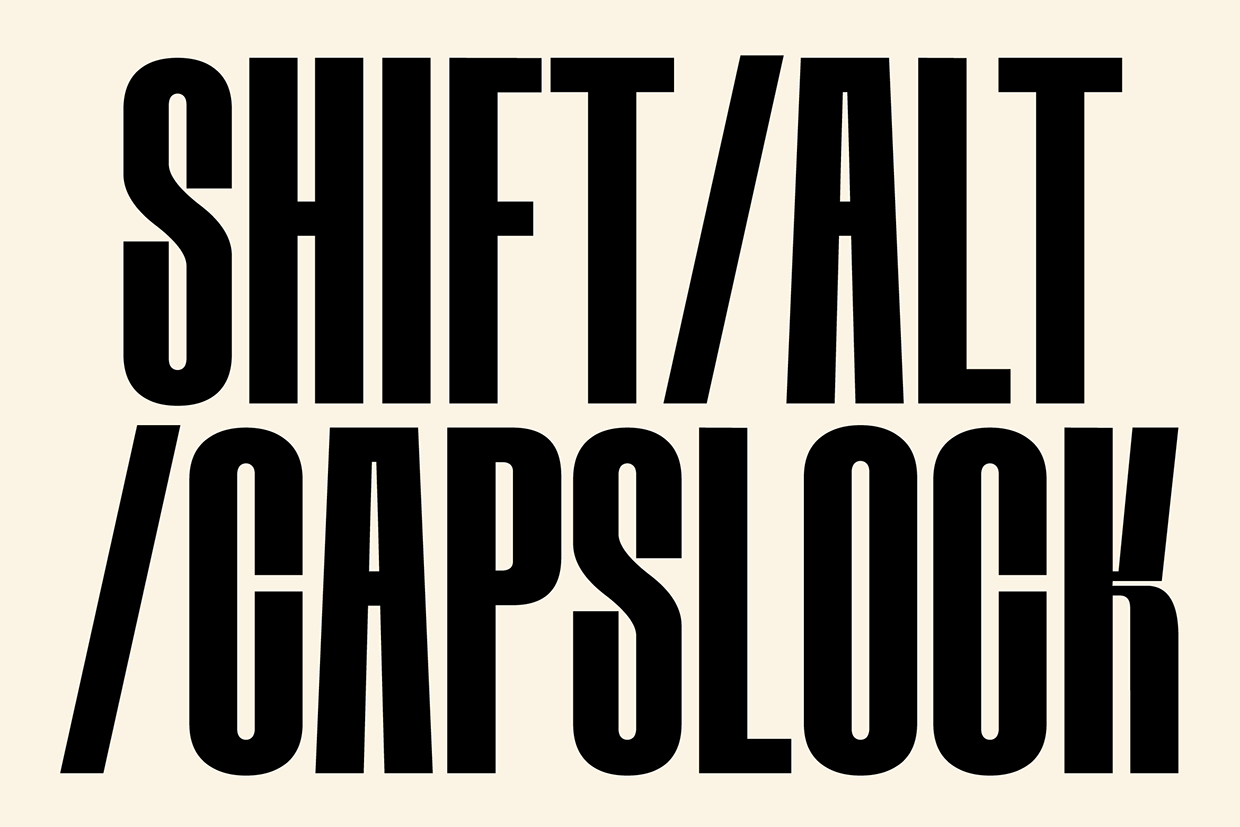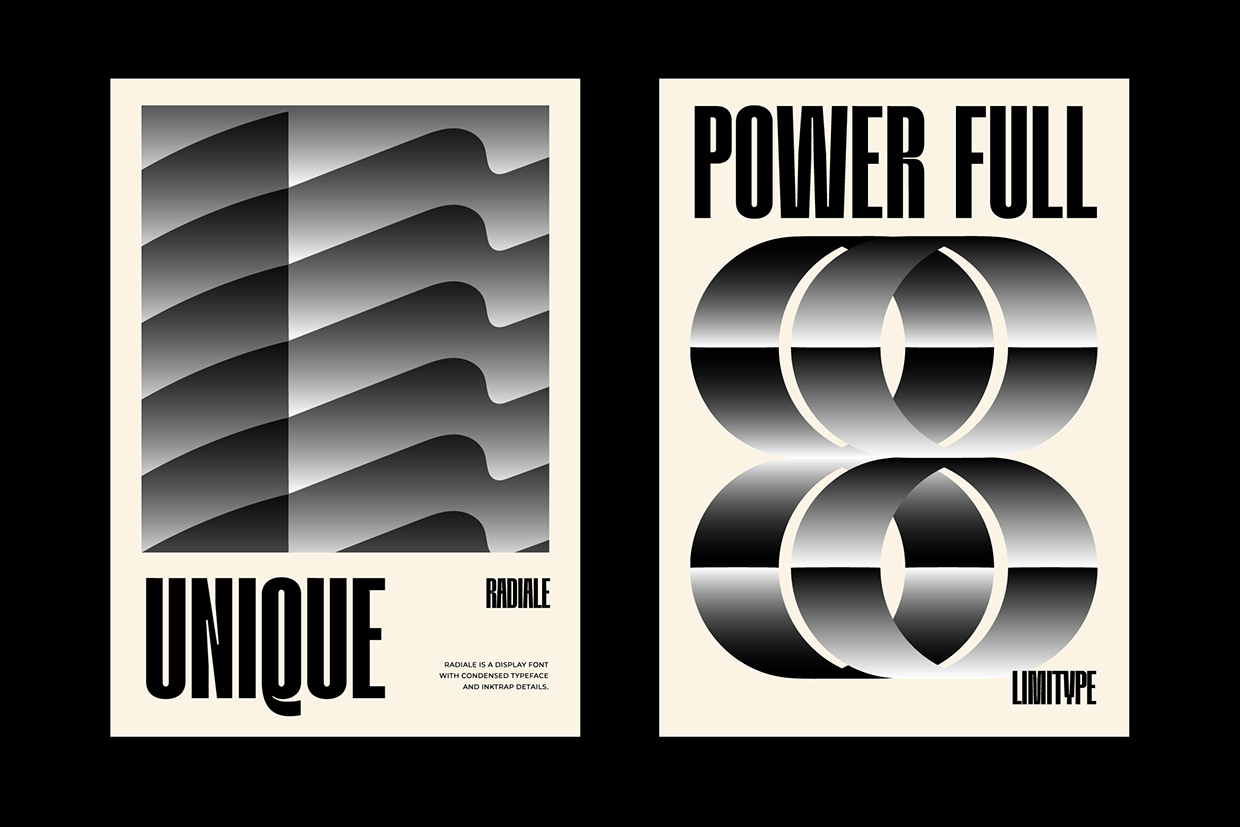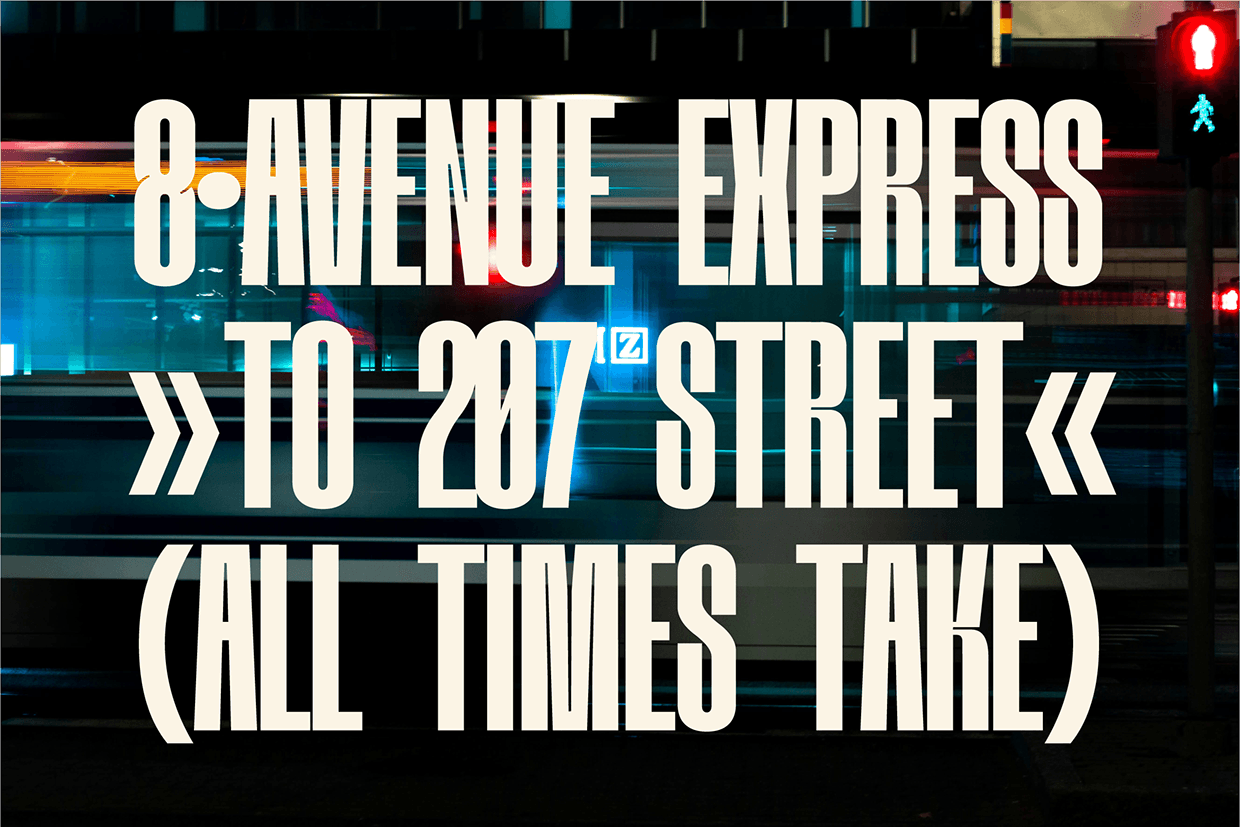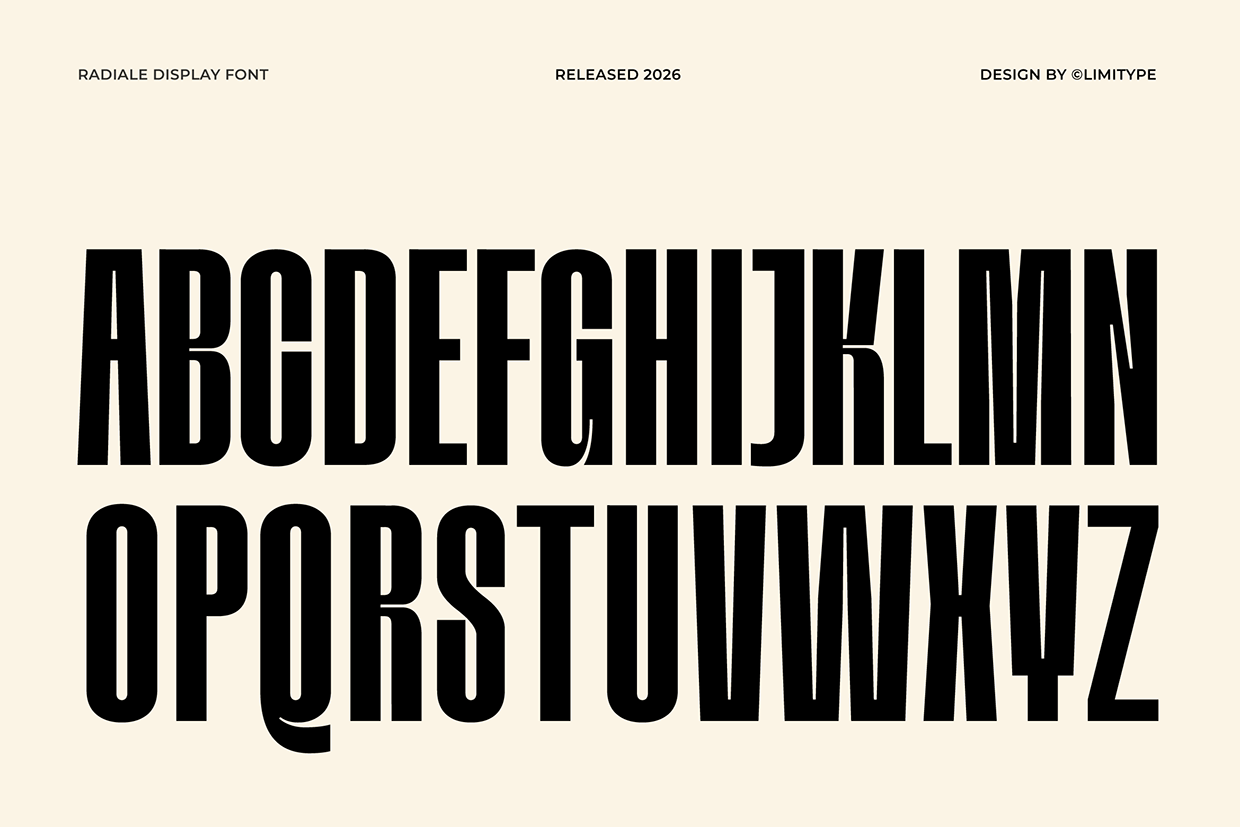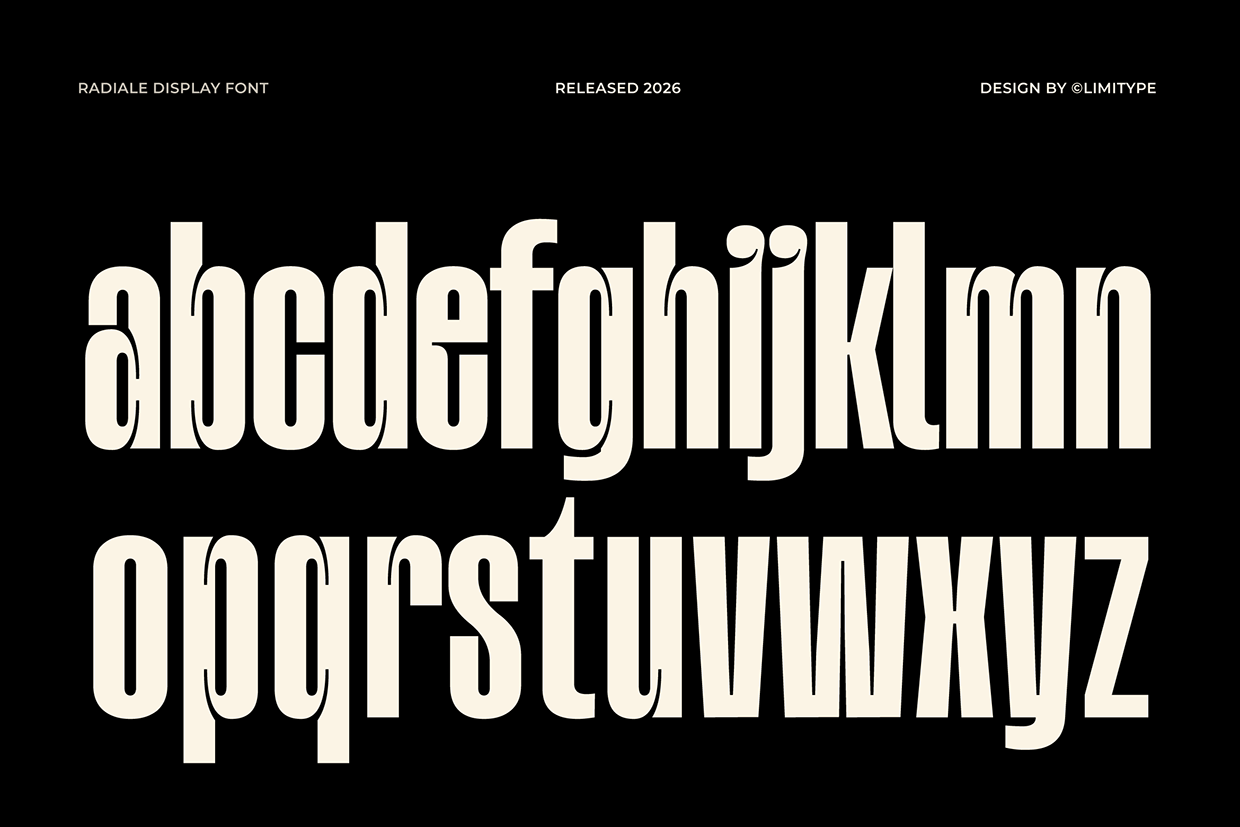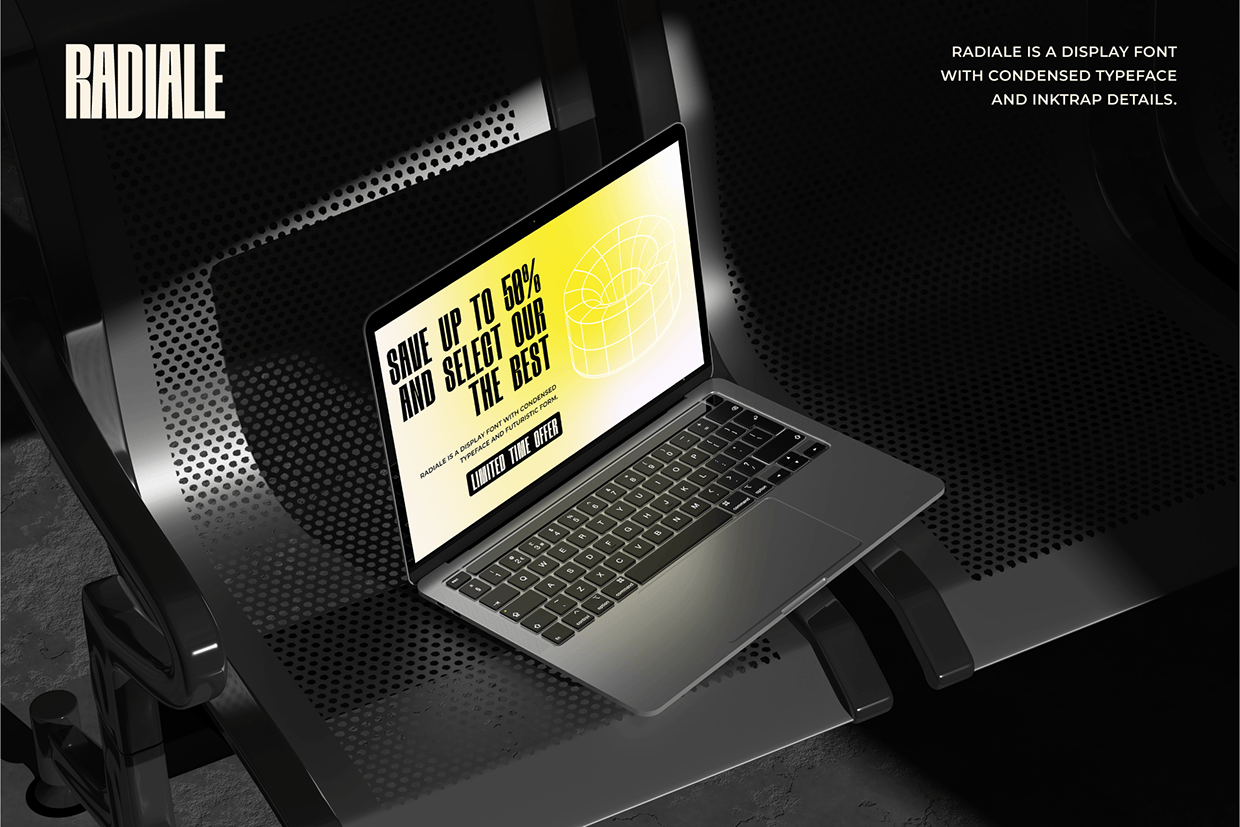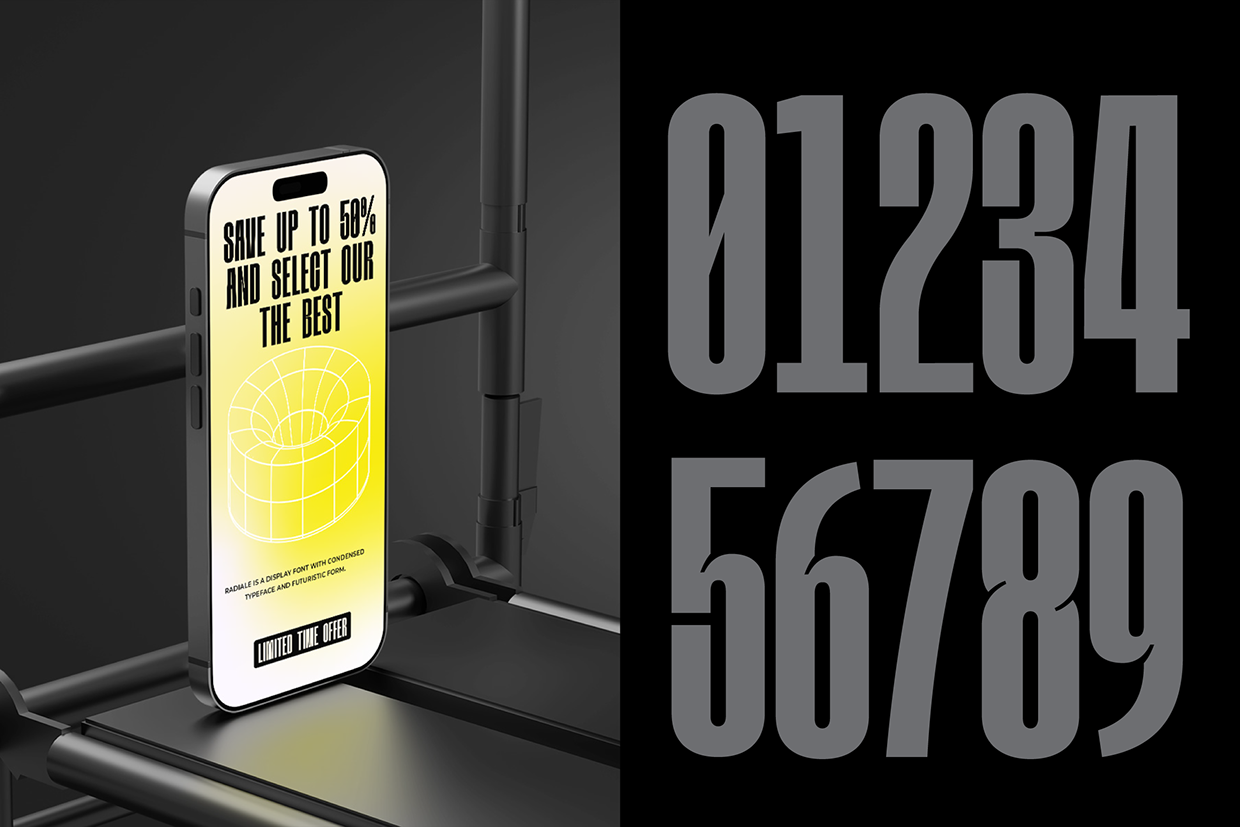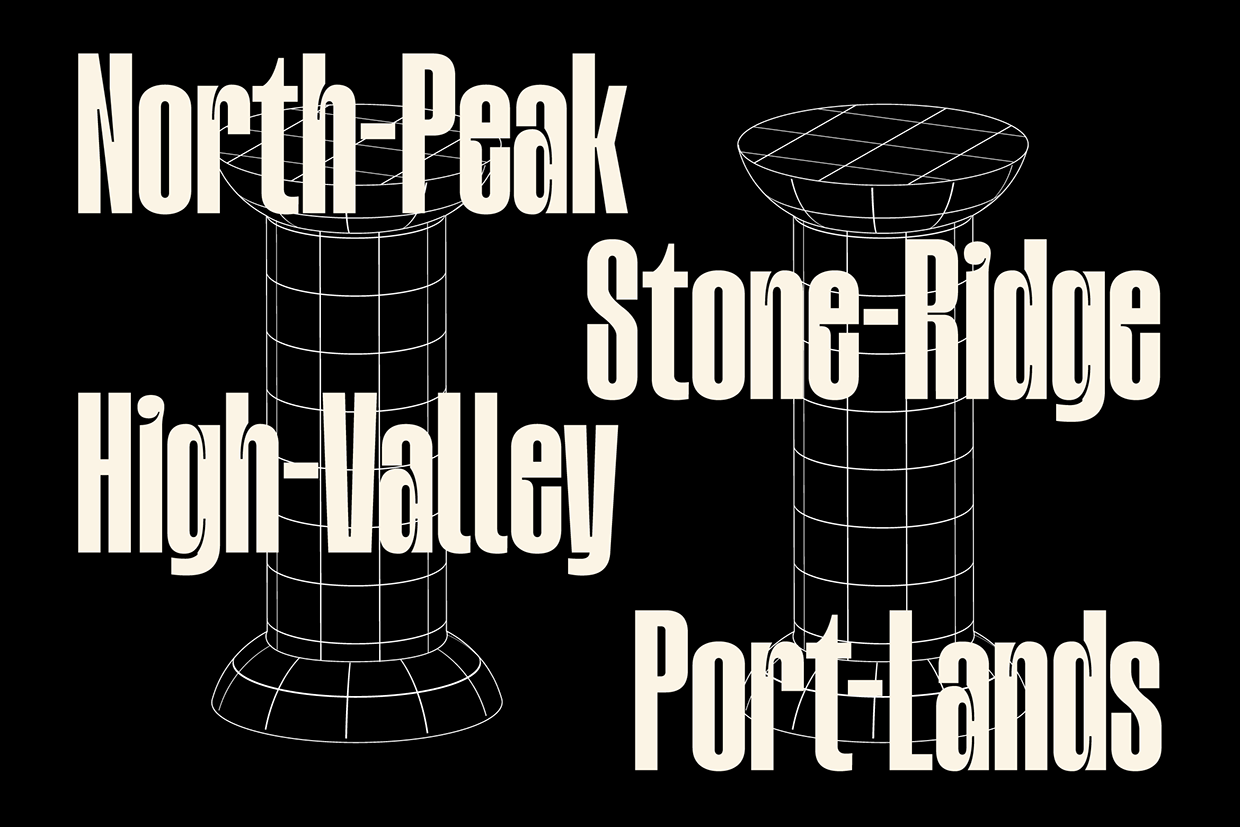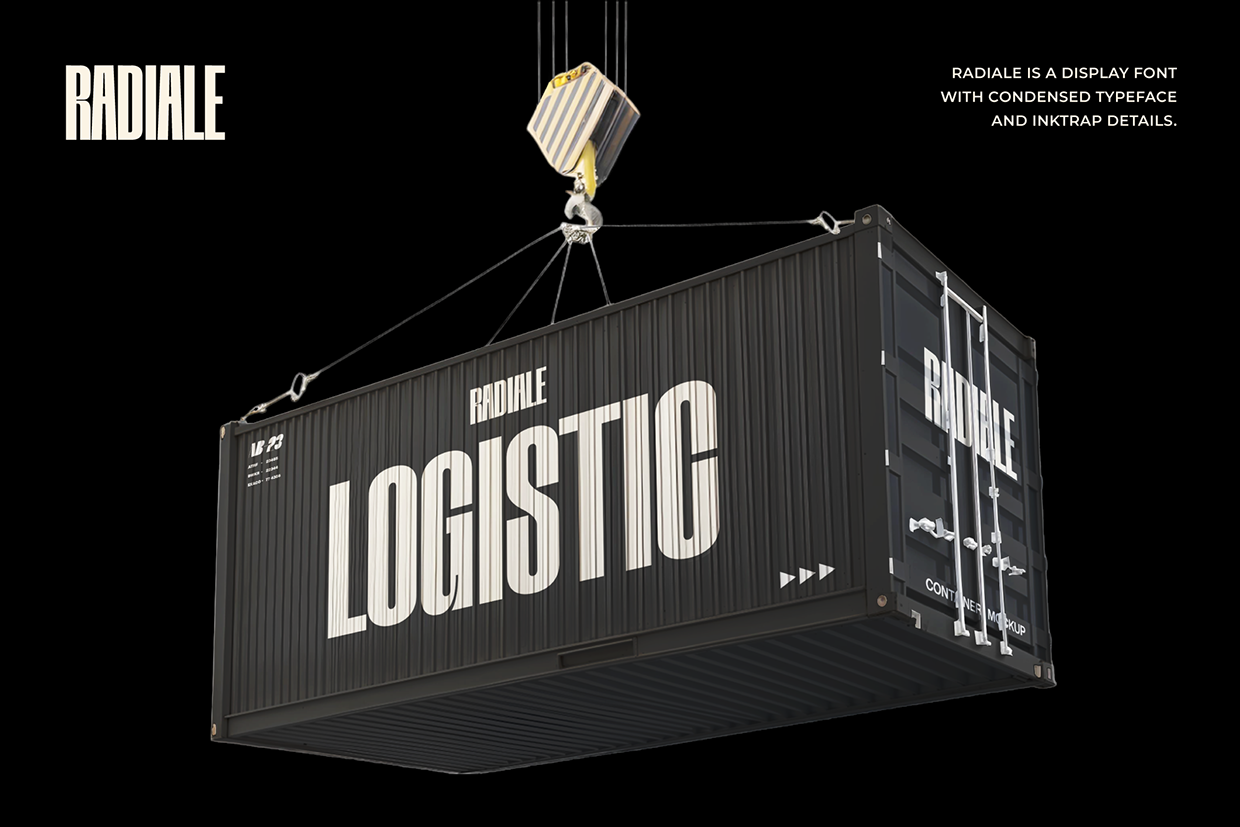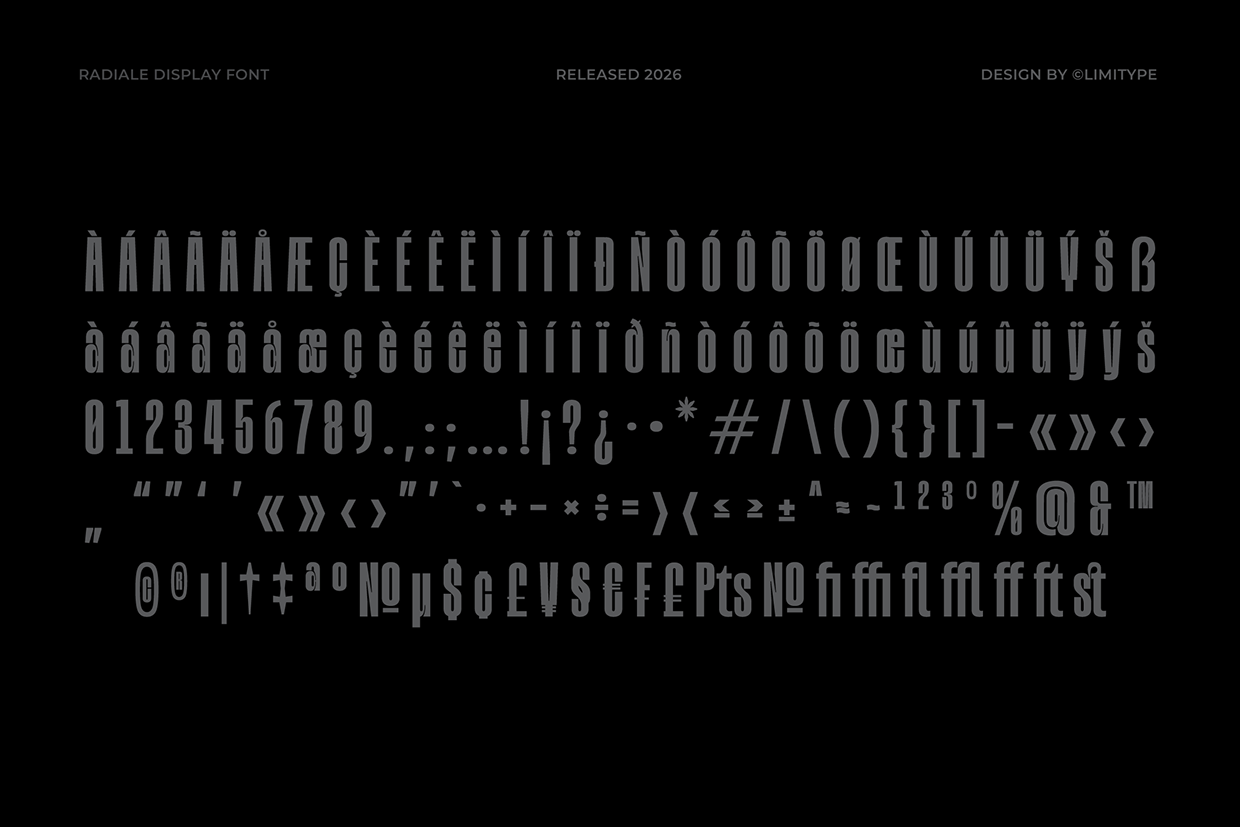
Radiale - Condensed Font
Radiale is a condensed typeface with ink-traps designed to meet the demands of modern typography across a wide range of visual contexts. Its narrow letterforms optimize space efficiency, while subtly applied ink-trap details ensure clarity and consistency at various sizes and across different media. With a bold, clean, and contemporary character, this typeface is well suited for branding, logos, headlines, packaging, posters, and visual identity systems that require a professional and timeless appearance.